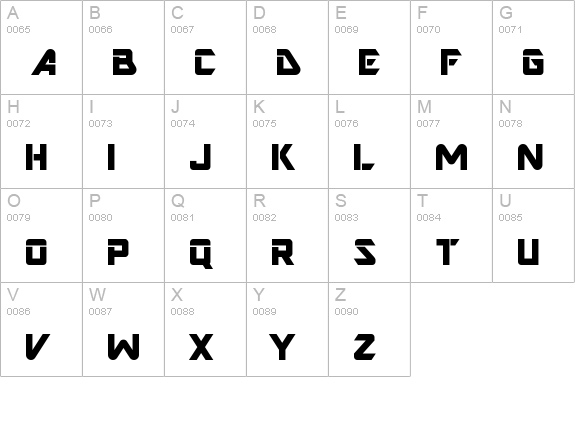
Gravicon Display Font Details
Introducing the captivating Gravicon Display font, a modern and stylish typeface that is sure to make your designs stand out. This elegant font features sleek lines and a contemporary feel, making it perfect for a wide range of projects. Whether you're designing a logo, creating a poster, or crafting a website, Gravicon Display is the perfect choice to add a touch of sophistication to your work. And the best part? Gravicon Display is completely free to download at FontsMarket.com! That's right, you can easily access this stunning font and enhance your designs without any cost. Don't miss out on this fantastic opportunity to elevate your projects with the beauty of Gravicon Display font. Download it today and let your creativity soar!